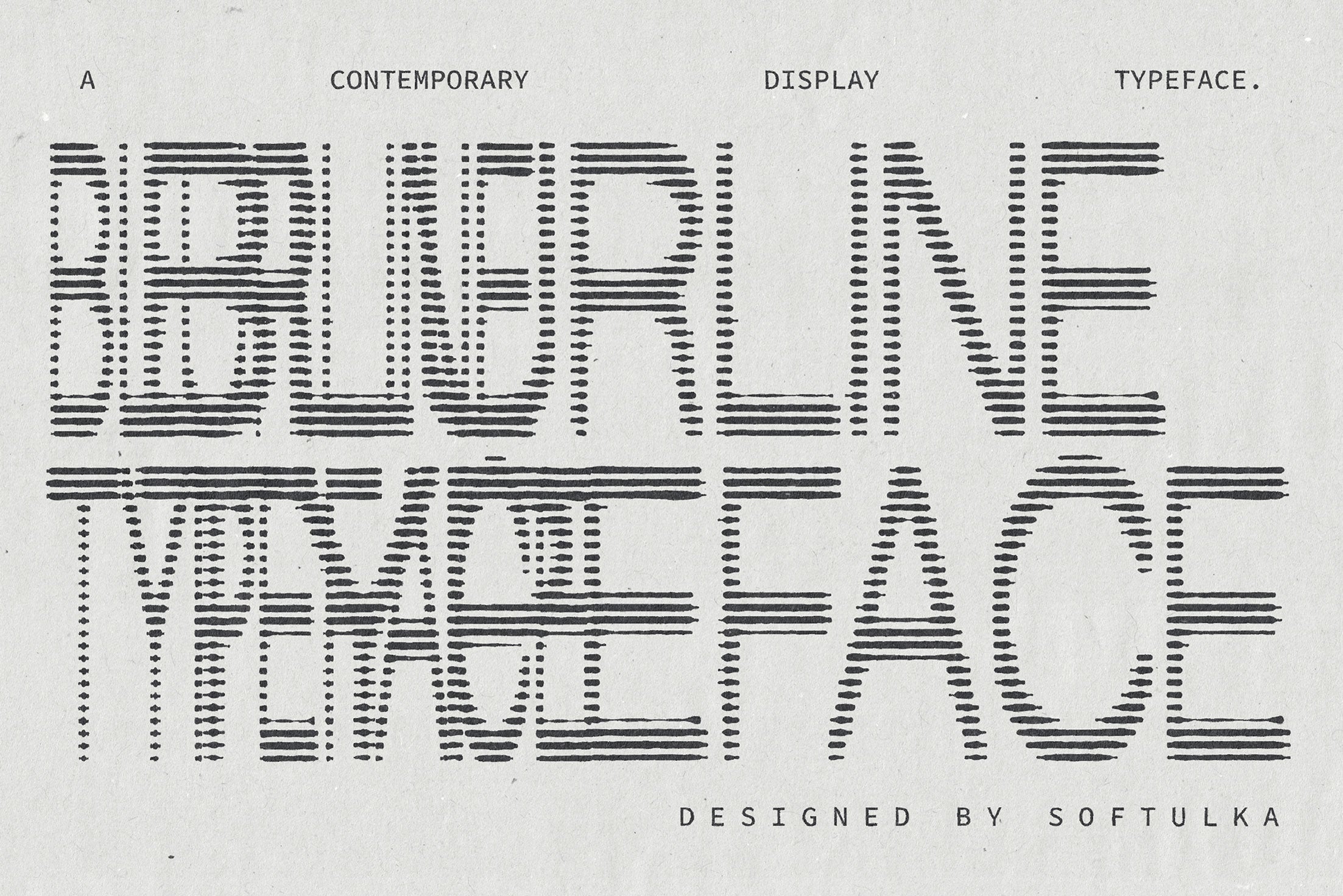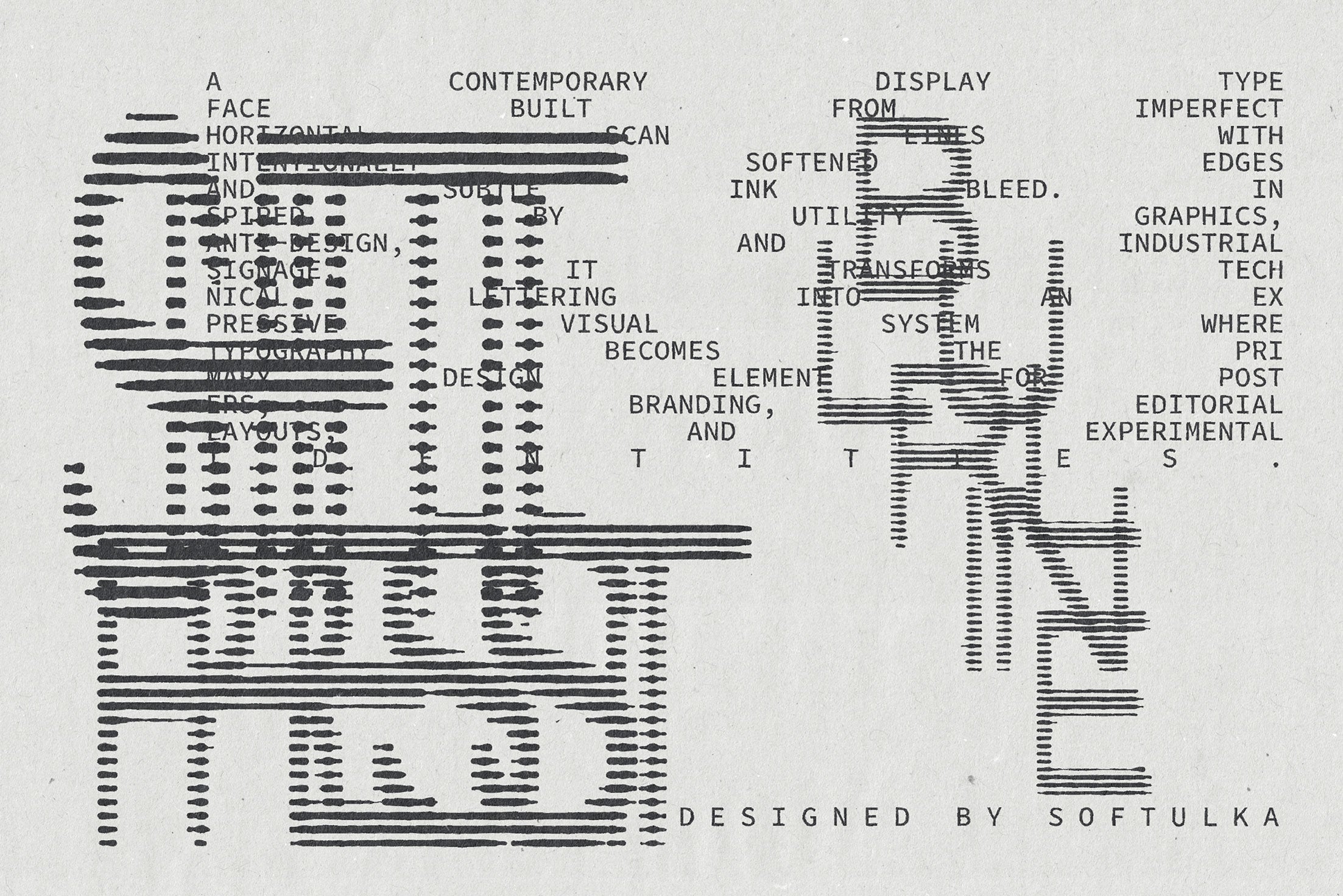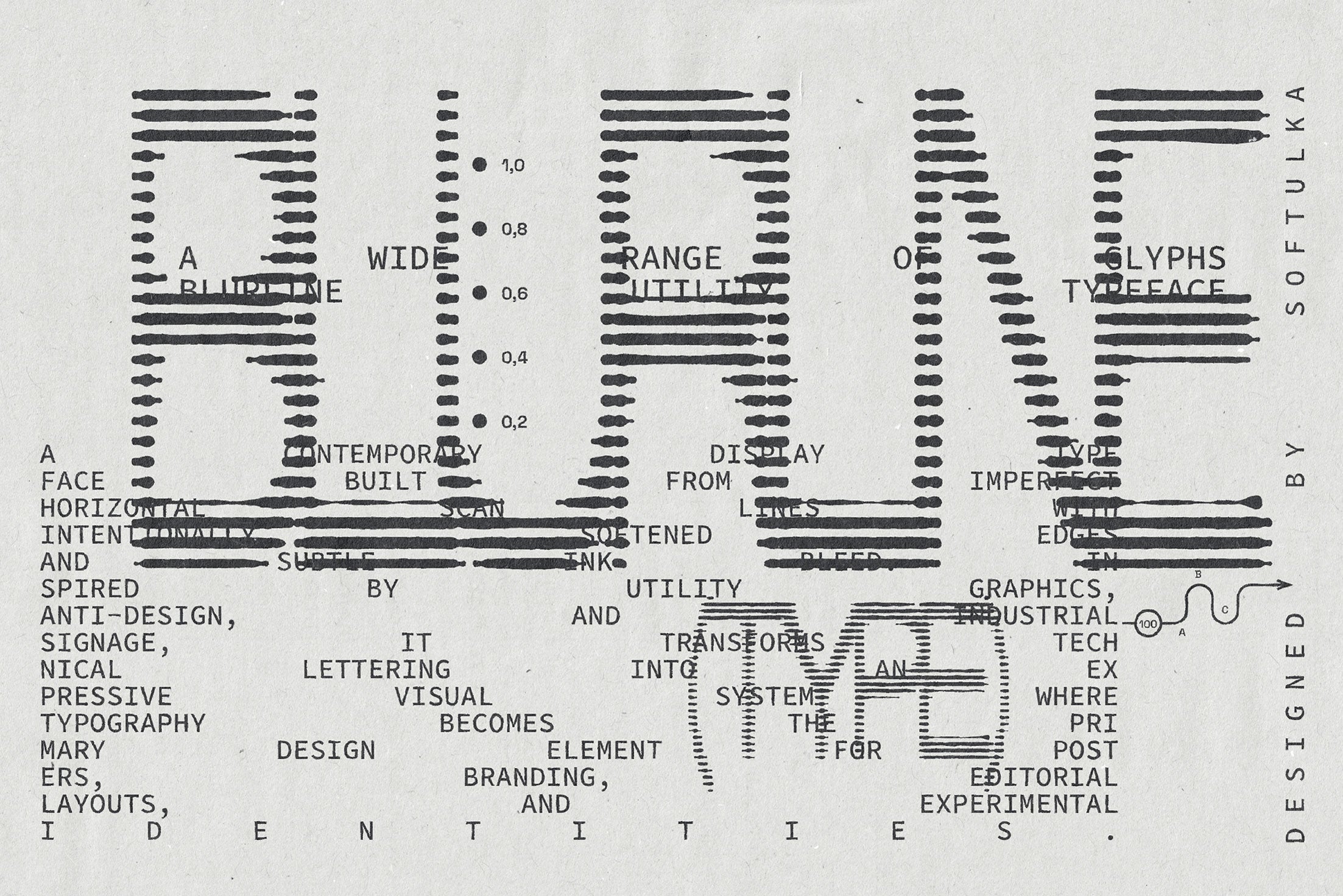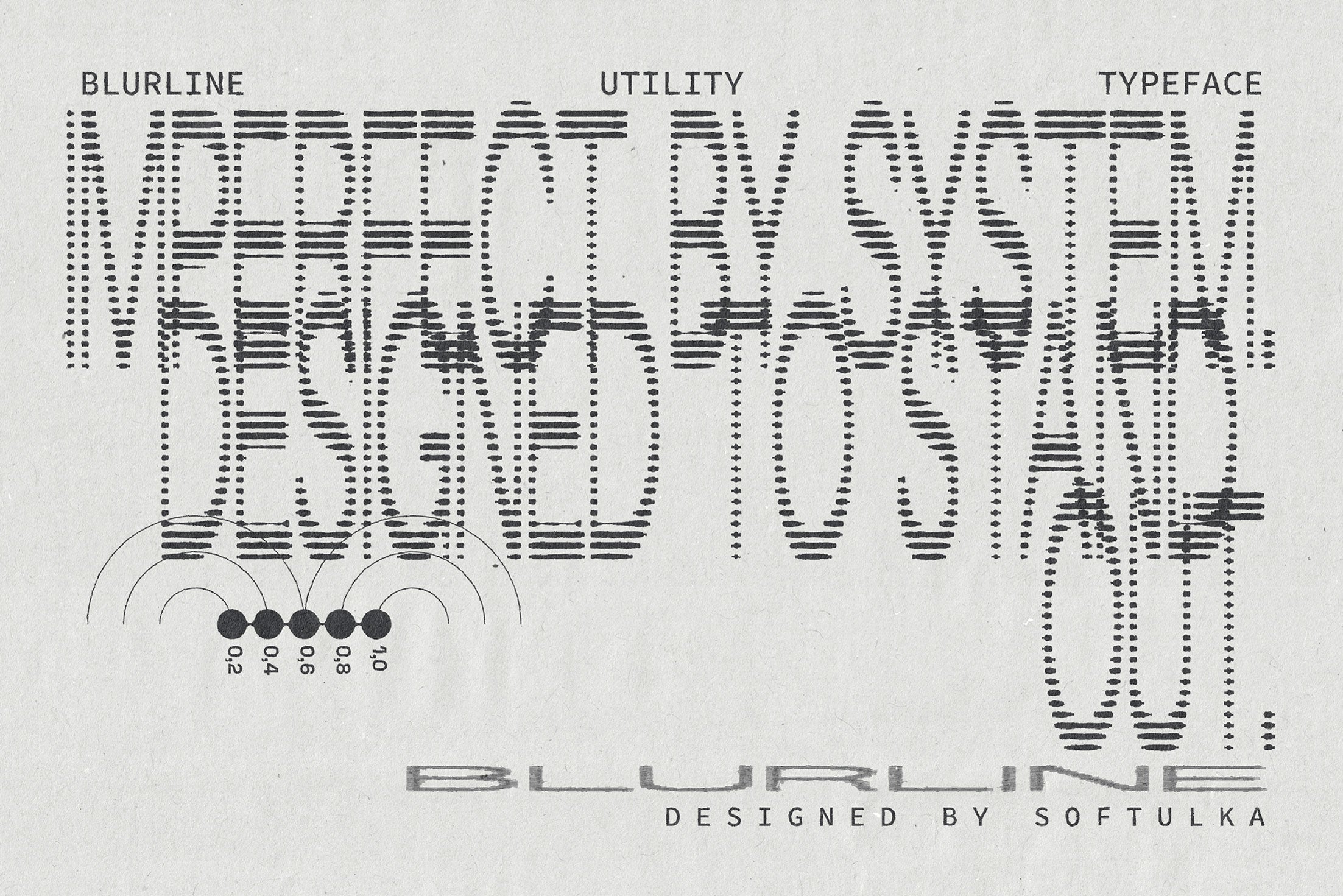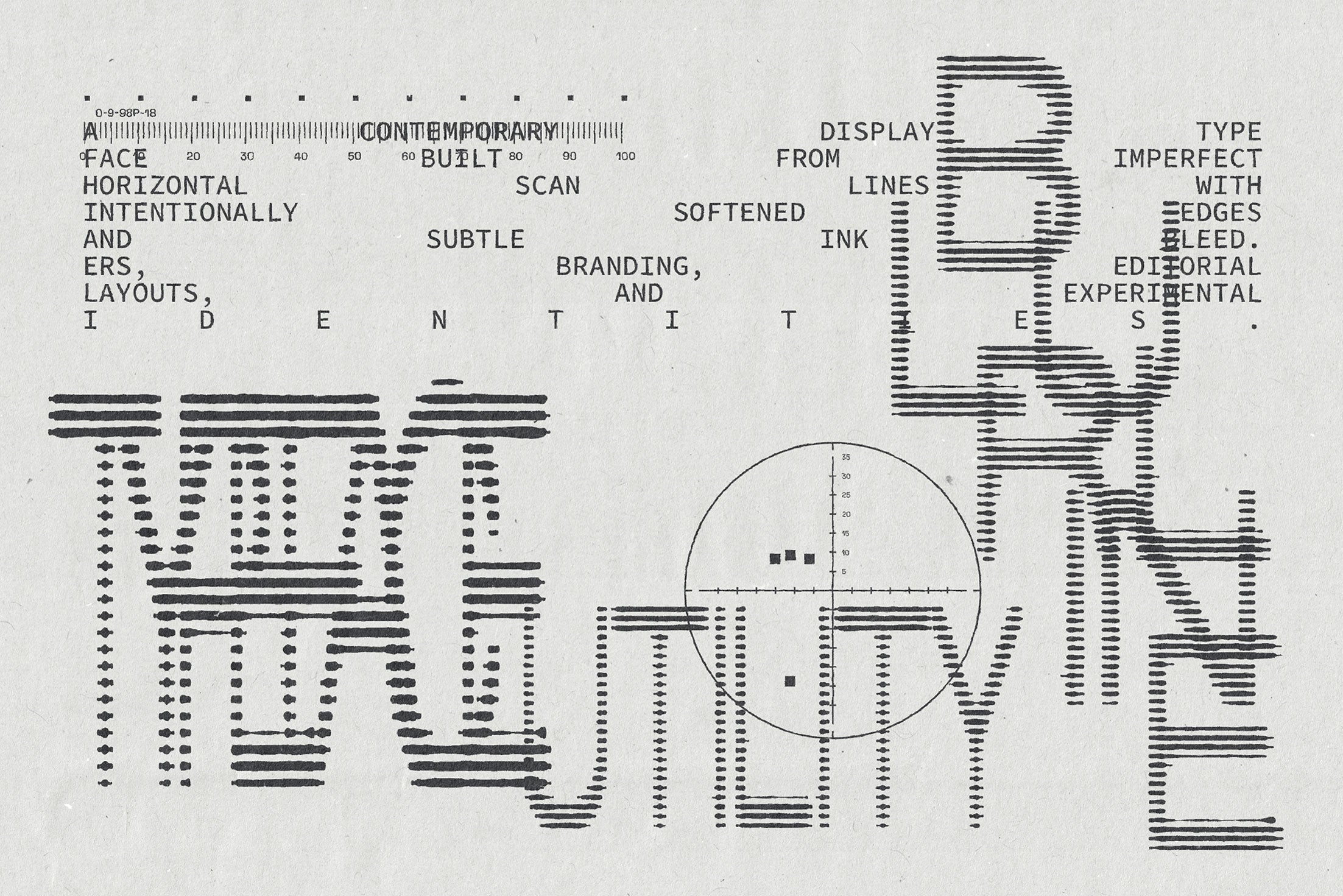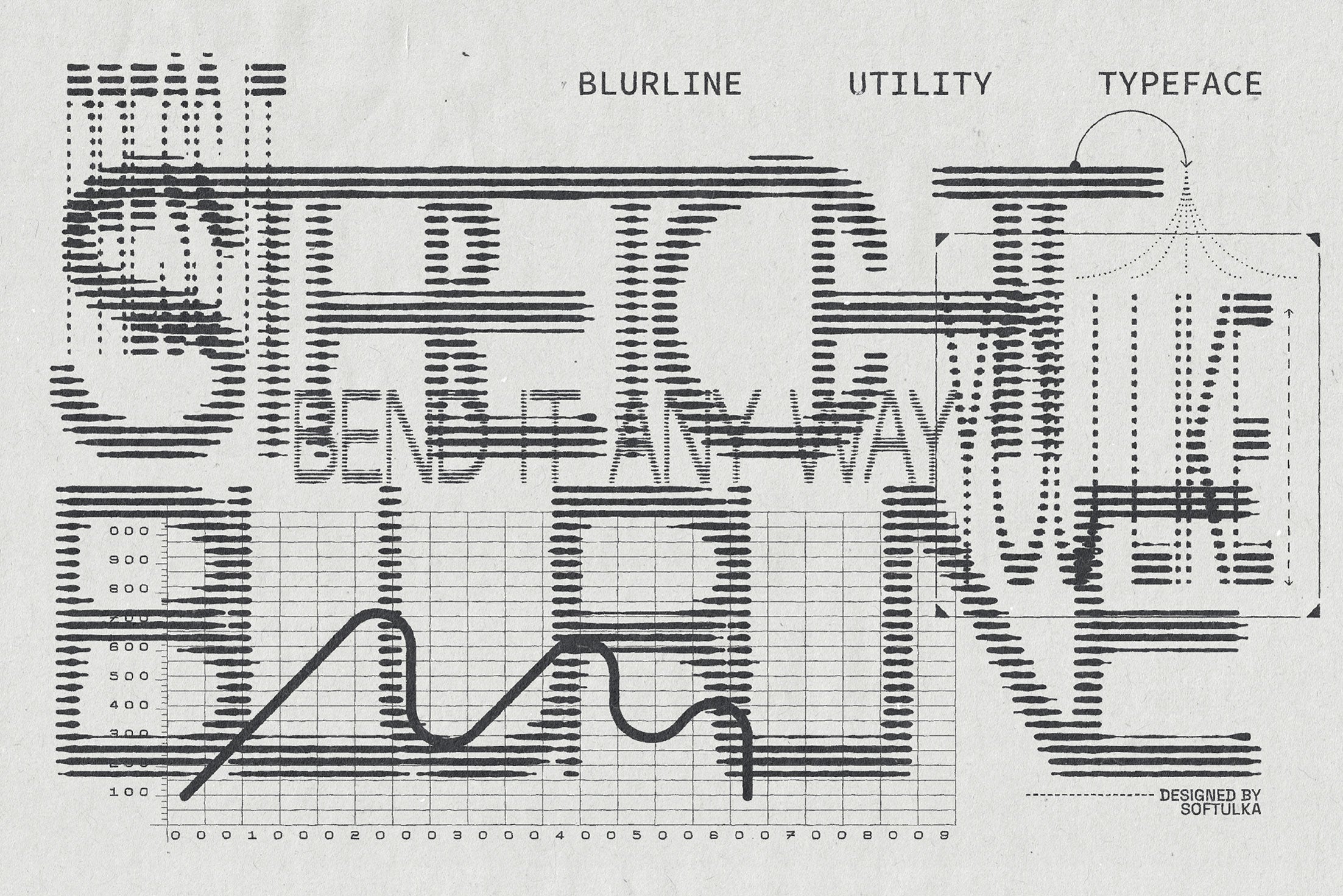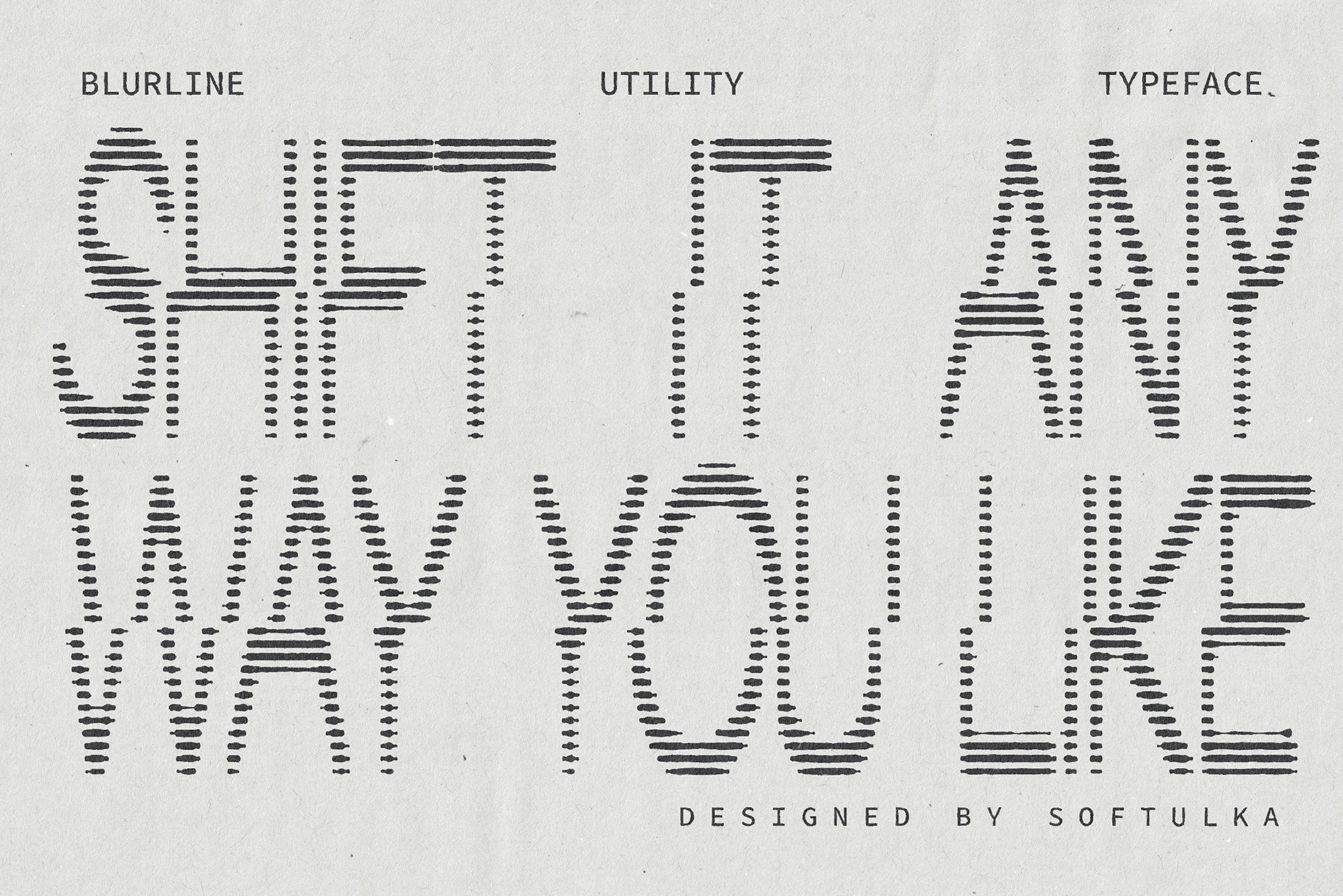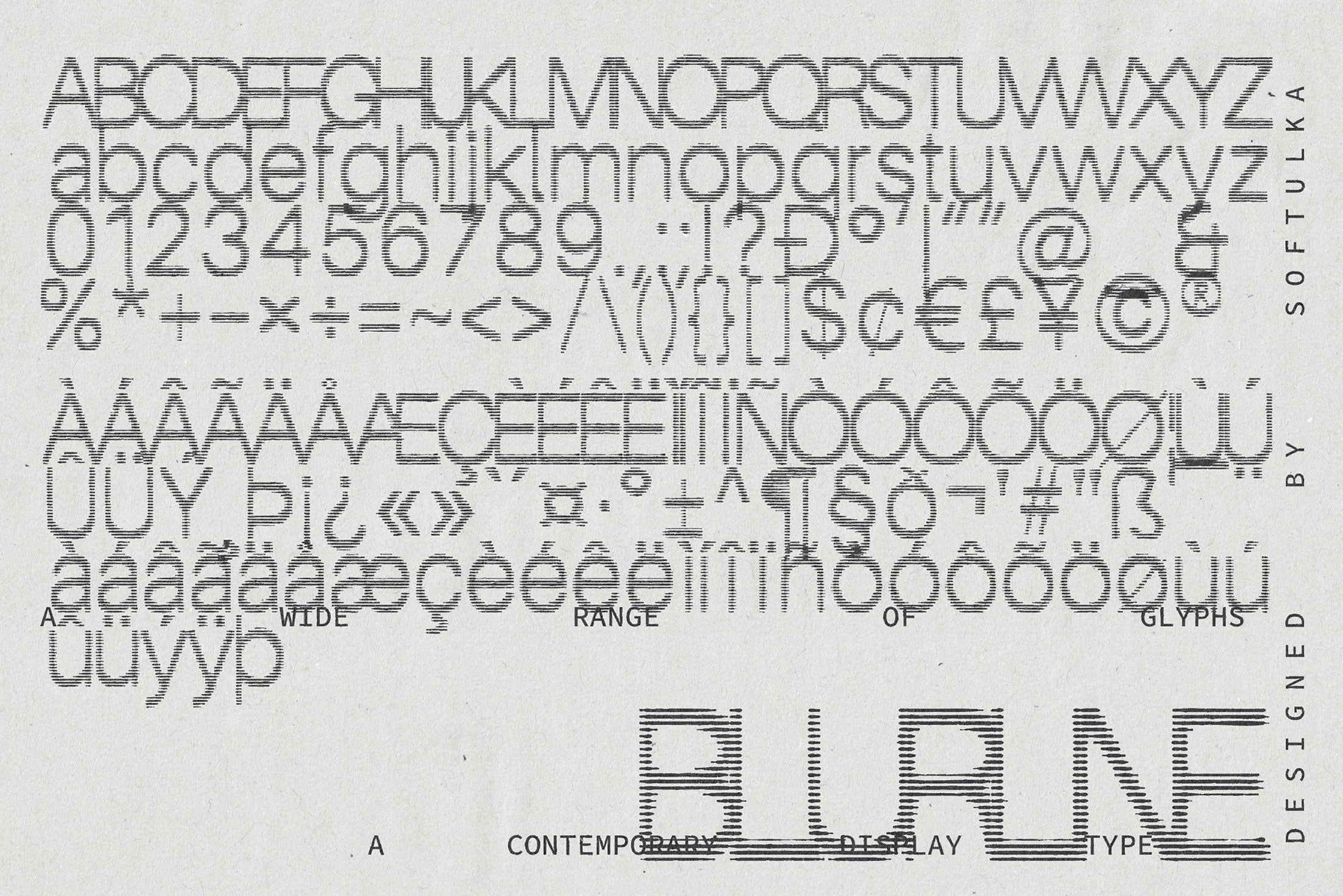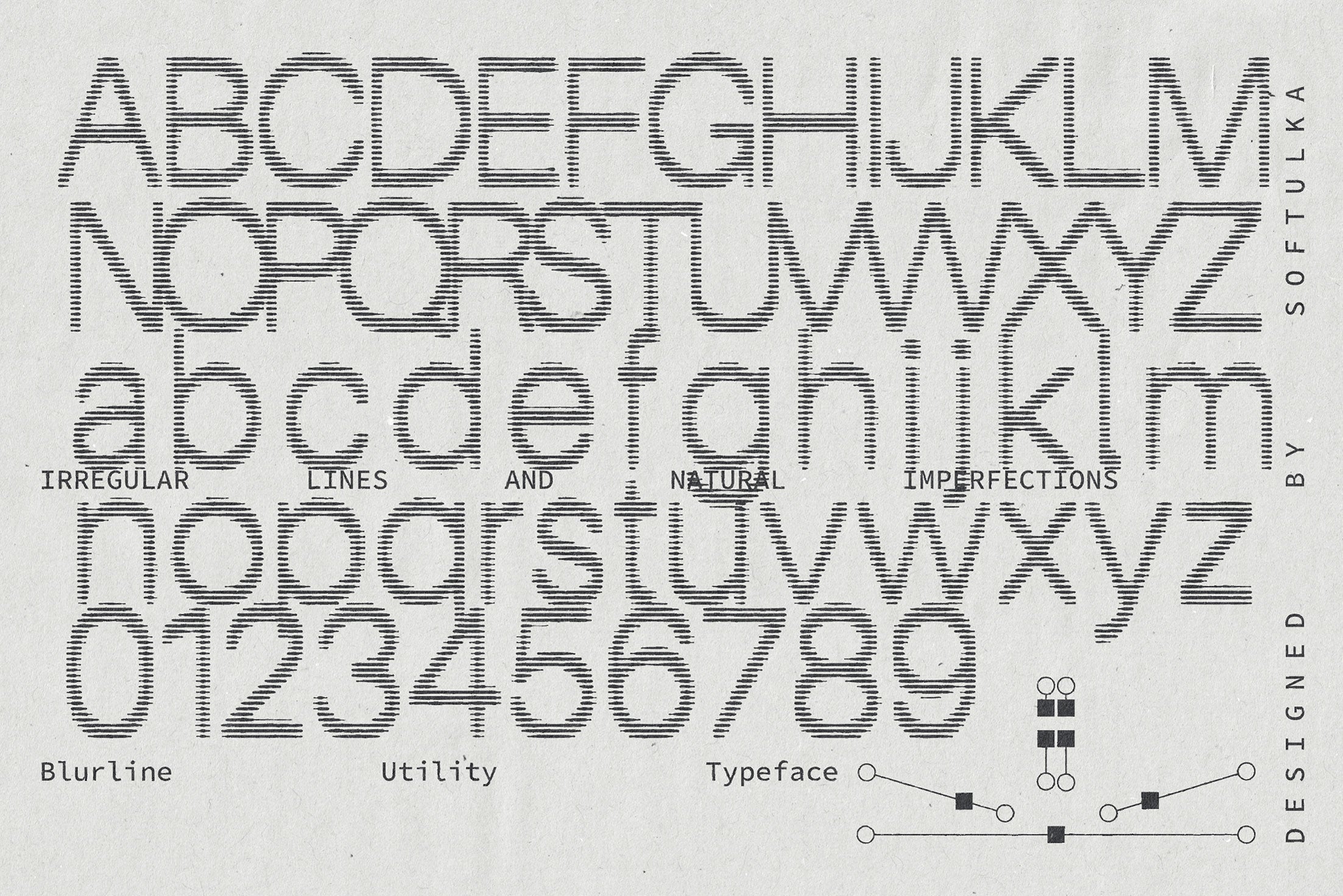
Blurline Utility Typeface
Blurline Utility is a contemporary display typeface that transforms industrial utility lettering into an expressive graphic system. Built from imperfect horizontal scan lines, softened edges, and subtle ink bleed, it captures the tension between mechanical precision and analog imperfection.
Inspired by industrial signage, anti-design, technical documentation, and utility graphics, the typeface produces a distinctive visual texture where typography becomes more than communication—it becomes composition. Every letter carries the feeling of aged print, scanned documents, and weathered information systems while remaining clean enough for modern creative work.
Designed for graphic designers seeking bold visual identities, Blurline Utility excels across posters, branding, editorial layouts, album artwork, packaging, apparel, motion graphics, and experimental digital design. Its unique construction instantly adds depth and character without overwhelming the composition.
• 194 Glyphs
• Lowercase
• Diacritics
• Symbols
• Currency
• Mathematics